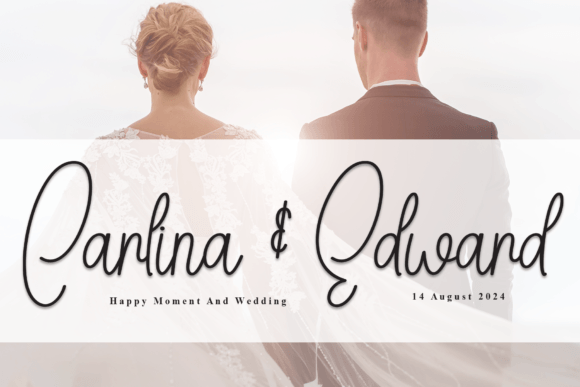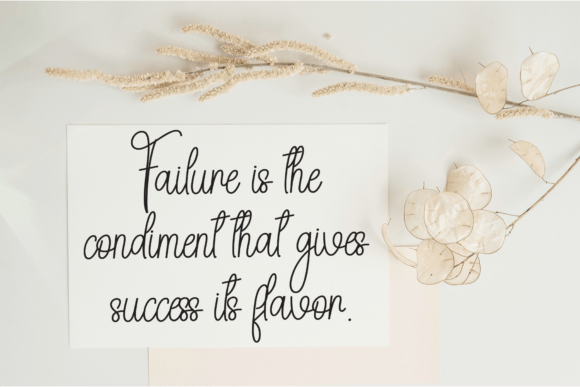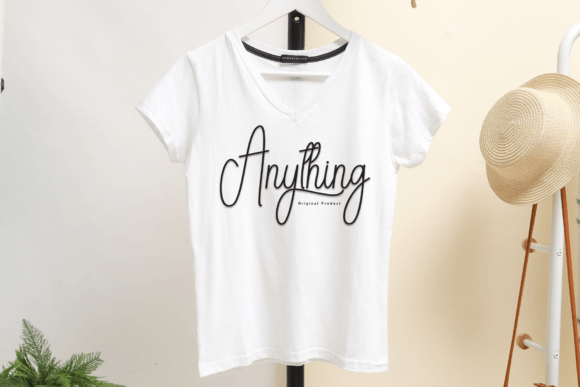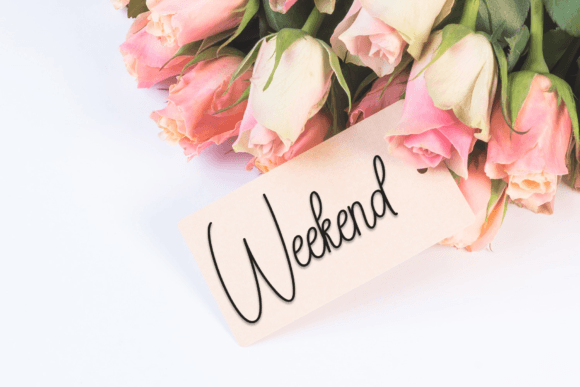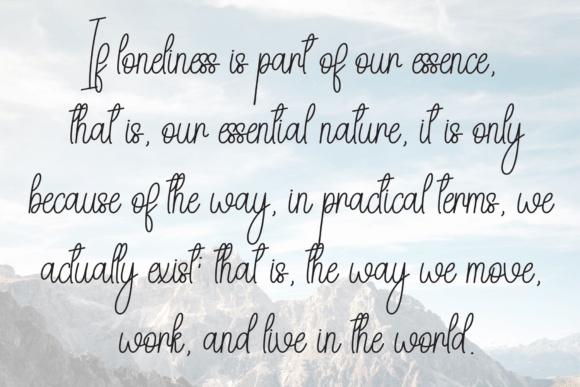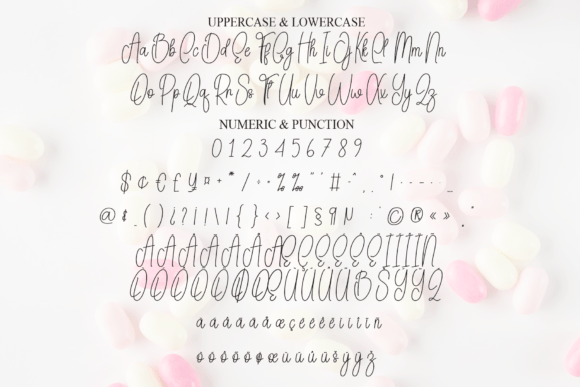
Bubblegum Font: Add a Dash of Fun and Whimsy to Your Designs
Are you tired of using the same old fonts in your designs? Do you want to add a touch of personality and whimsy to your projects? Look no further than the Bubblegum Font! This delightful handwritten display font is perfect for infusing your designs with a friendly and endearing vibe.
What is Bubblegum Font?
Bubblegum Font is a carefully crafted handwritten display font that exudes a sense of fun and playfulness. Its unique and charming lettering style makes it perfect for a wide range of design applications, from wedding invitations and greeting cards to social media graphics and craft projects.
Key Features of Bubblegum Font
- Whimsical Handwritten Style: Bubblegum Font boasts a delightful handwritten style that adds a personal touch to any design.
- Endearing and Friendly Vibe: The font’s playful and approachable feel makes it perfect for designs that require a friendly and inviting tone.
- Highly Versatile: Bubblegum Font can be used in a variety of design applications, from digital projects to print materials.
- Easy to Read: Despite its playful style, Bubblegum Font remains highly legible, making it perfect for use in body text and headings.
Bubblegum Font is an incredibly versatile font that can be used in a wide range of design applications. Here are some ideas to get you started:
- Wedding Invitations: Add a touch of whimsy and romance to your wedding invitations with Bubblegum Font.
- Greeting Cards: Create personalized and playful greeting cards for birthdays, holidays, and other special occasions.
- Social Media Graphics: Use Bubblegum Font to create eye-catching social media graphics that showcase your brand’s personality.
- Craft Projects: Add a personal touch to your craft projects, such as scrapbooking, DIY signs, and handmade gifts.
Why Choose Bubblegum Font?
With so many fonts to choose from, why should you choose Bubblegum Font? Here are just a few reasons:
- Unique and Eye-Catching: Bubblegum Font is a one-of-a-kind font that will help your designs stand out from the crowd.
Tips for Using Bubblegum Font
Here are a few tips for getting the most out of Bubblegum Font:
- Use it as a Display Font: Bubblegum Font is perfect for use as a display font, where it can add a touch of personality and whimsy to your design.
- Pair it with Other Fonts: Experiment with pairing Bubblegum Font with other fonts to create a unique and eye-catching design.
- Experiment with Colors: Bubblegum Font looks great in a variety of colors, so don’t be afraid to experiment and find the perfect hue for your design.